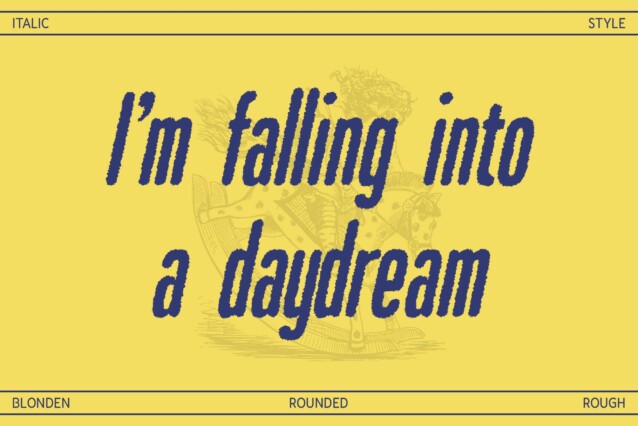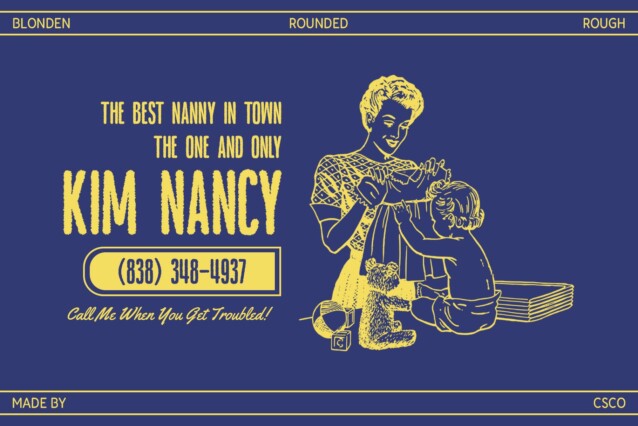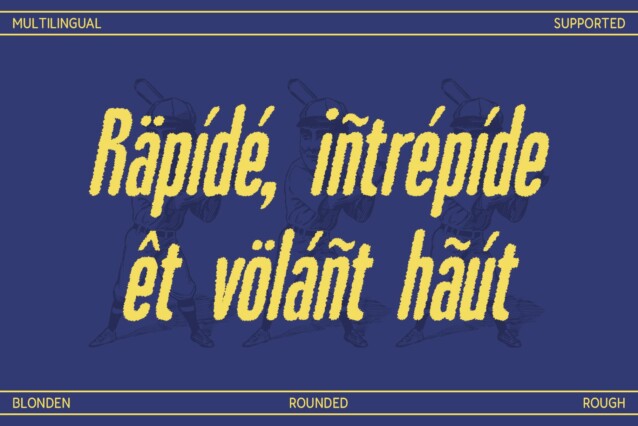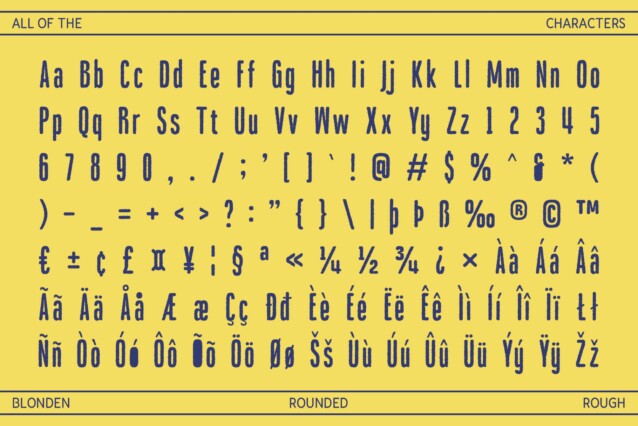
Blonden Rounded Rough Font
Blonden Rounded Rough Font is a modern sans serif font characterized by its condensed and rounded shapes, conveying a clean and friendly impression, making it suitable for contemporary designs and branding. The soft, rounded characteristics evoke warmth and approachability, making it an excellent choice for designs that aim to foster connection and engagement.